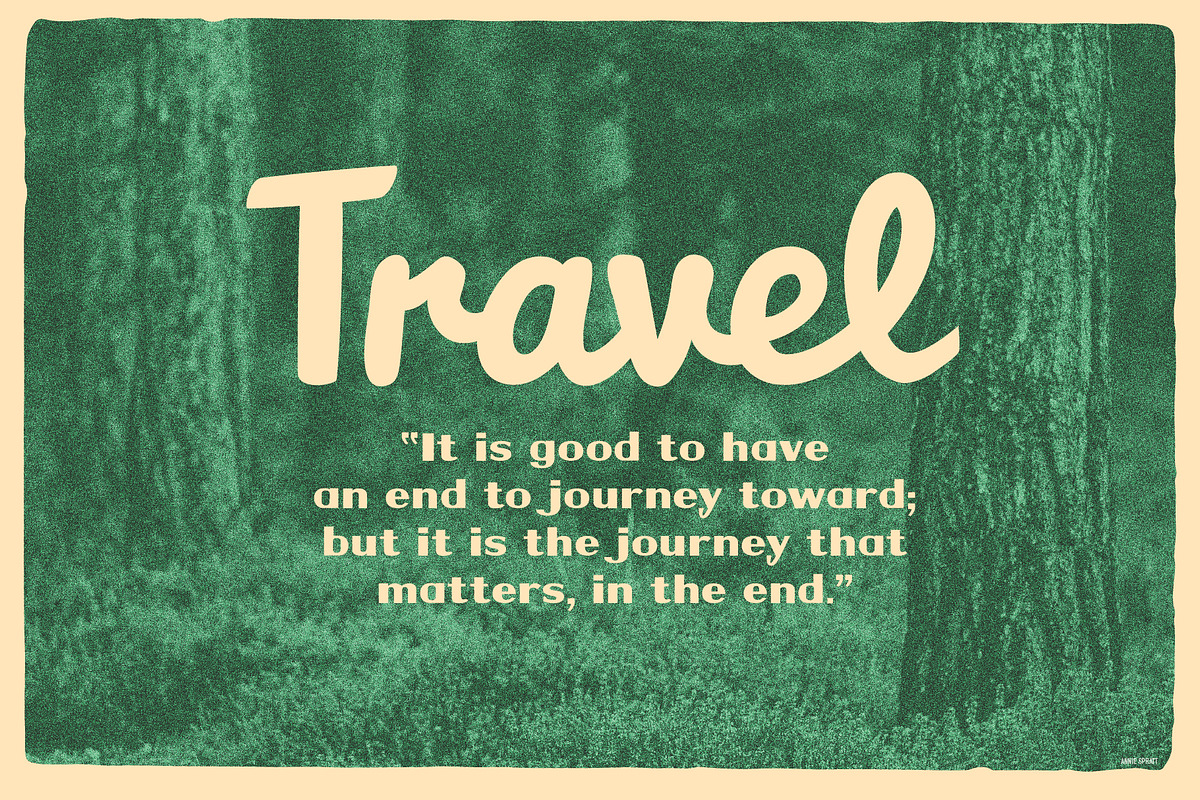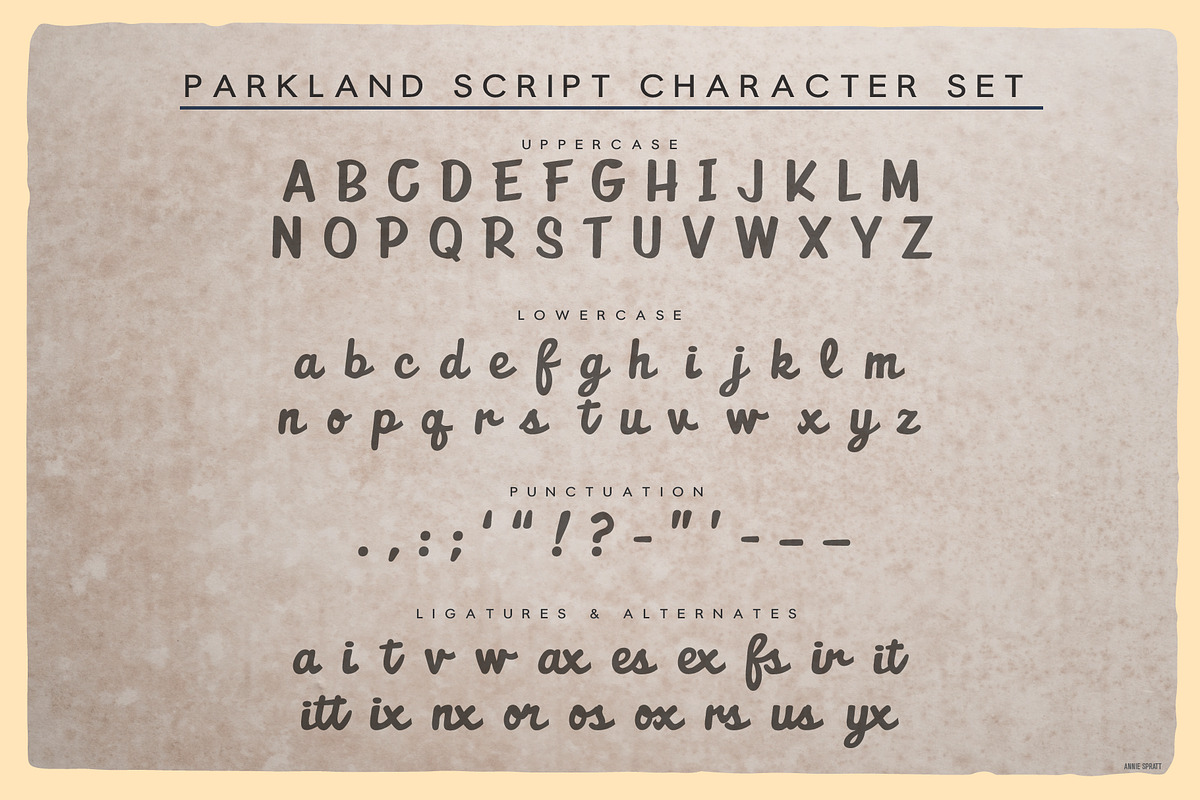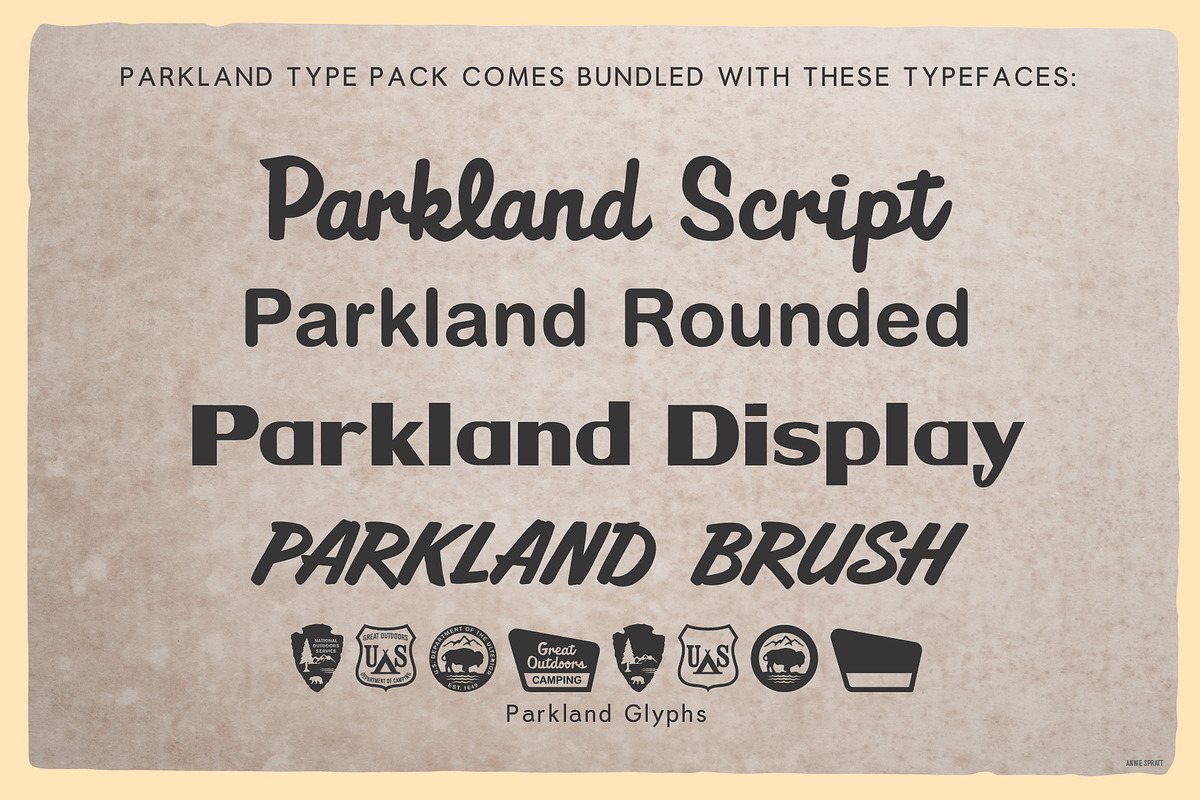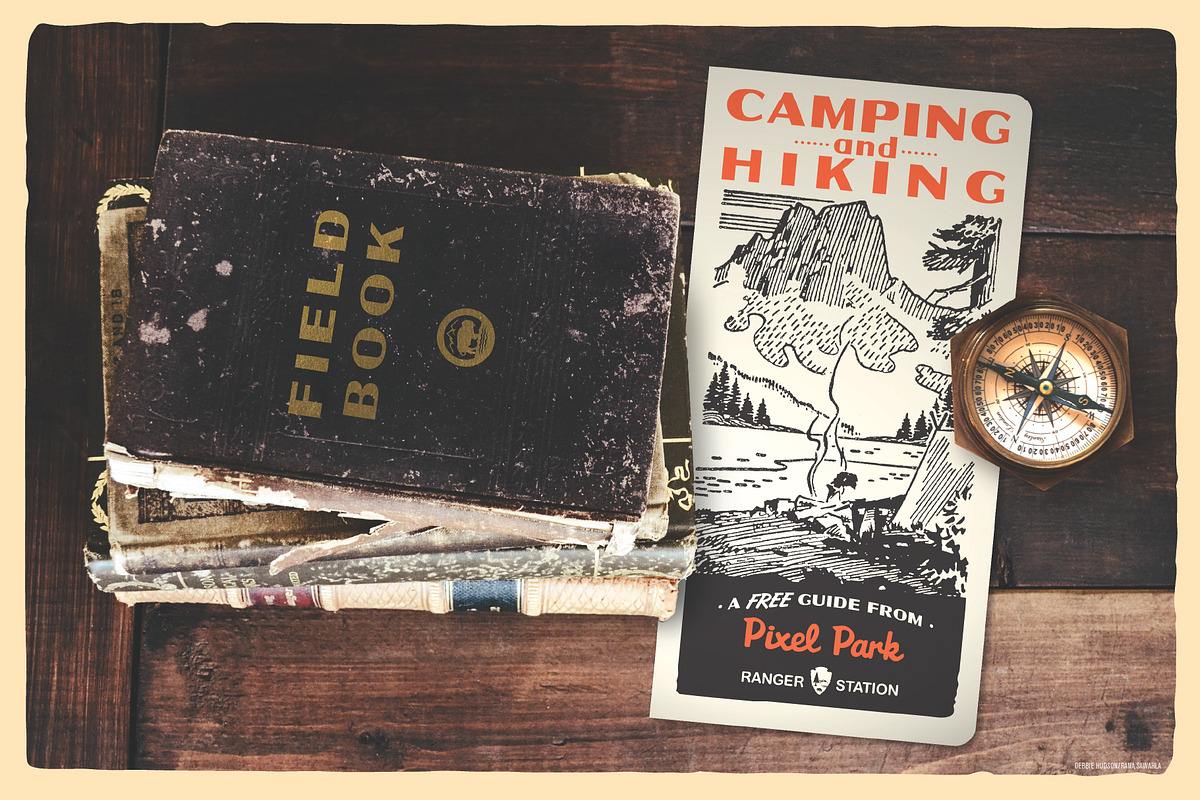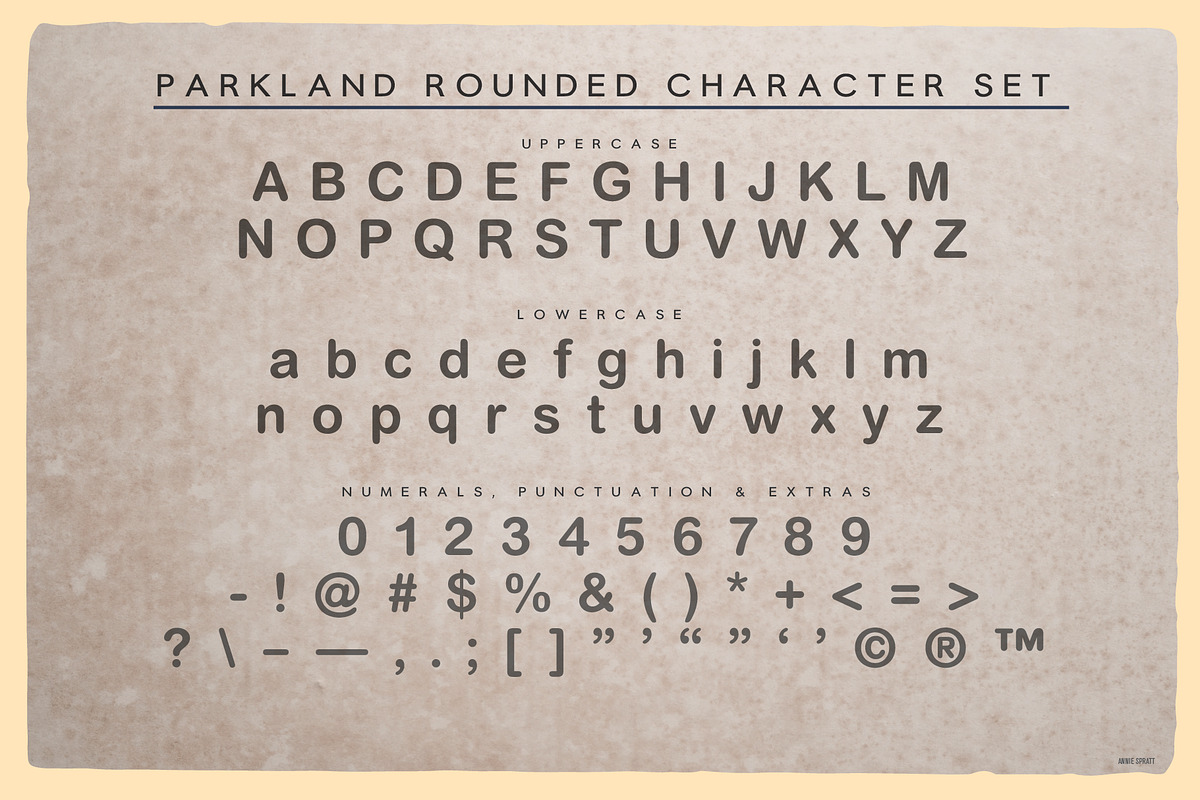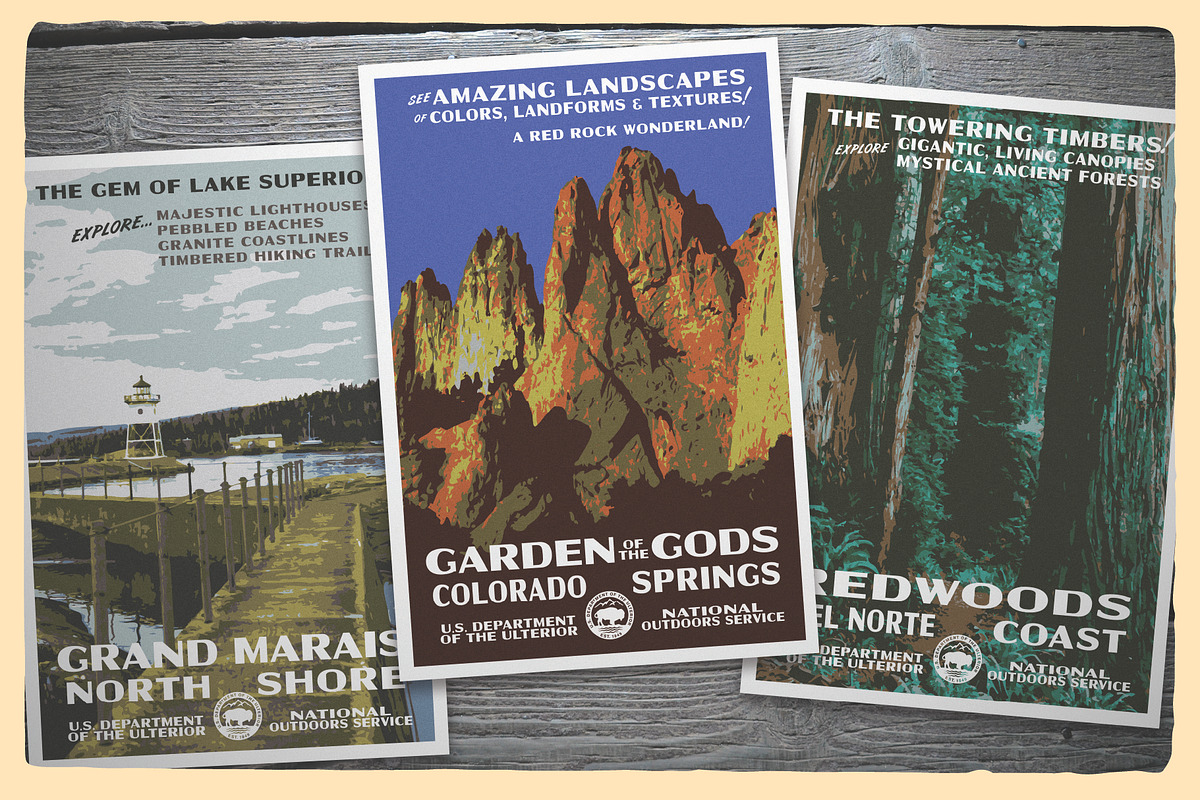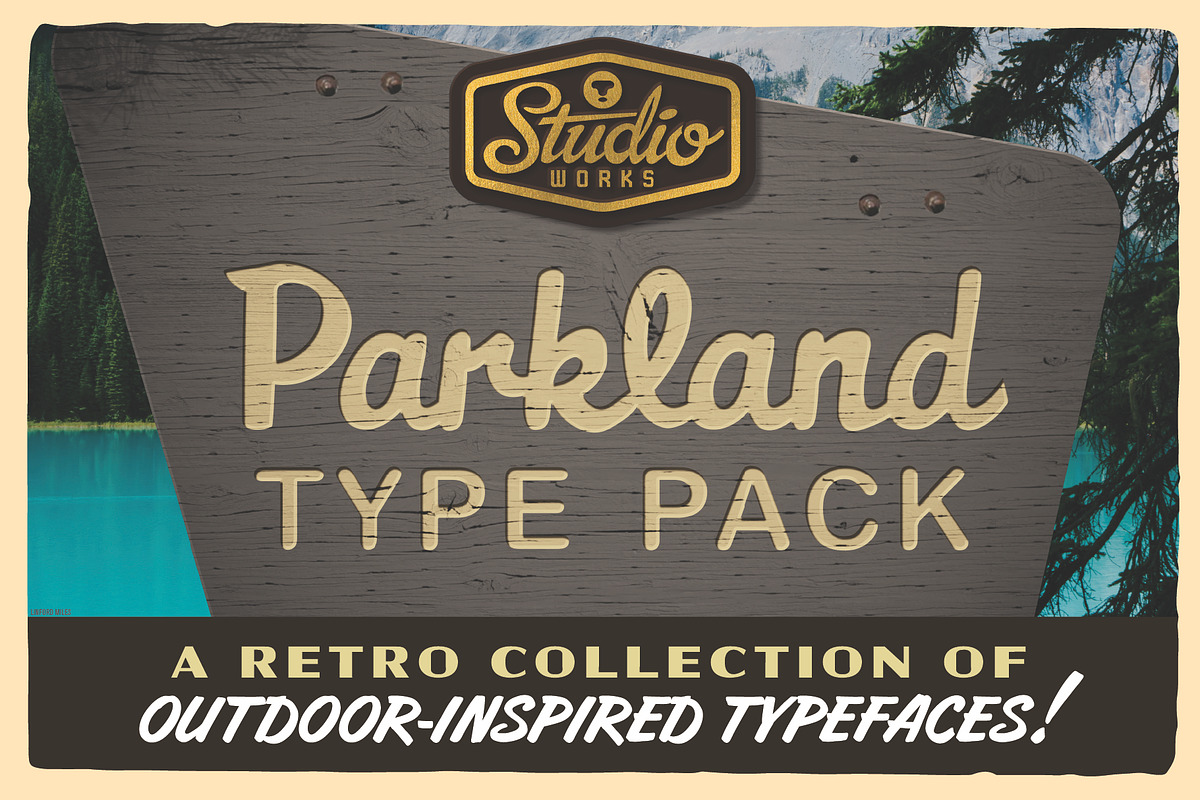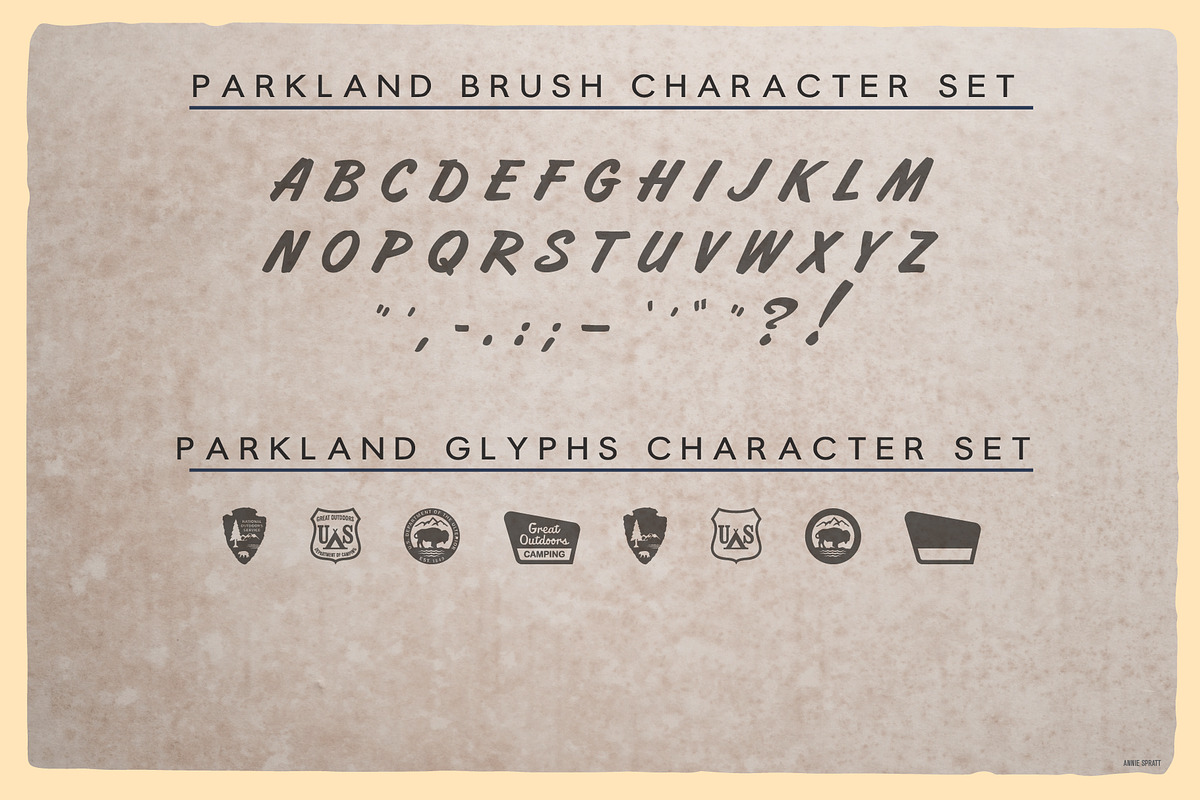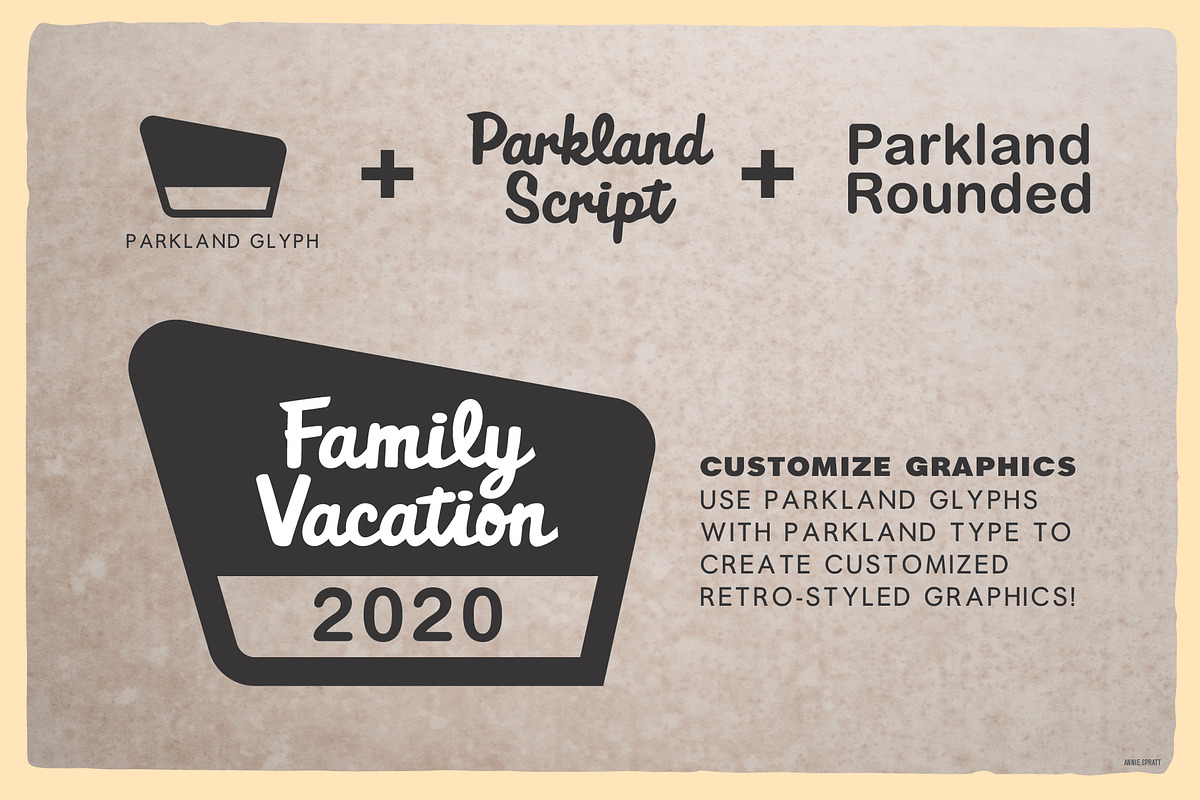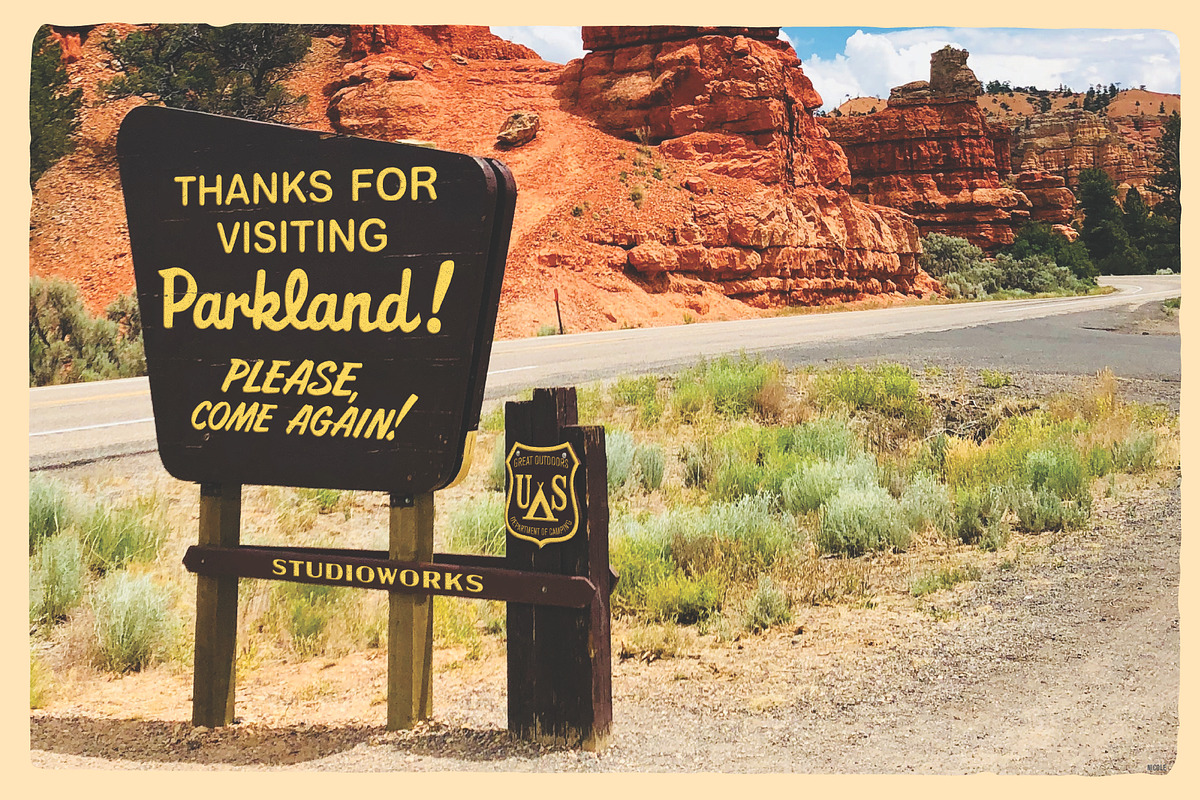
Parkland Type Pack | Retro Outdoors!
Introducing the •• P A R K L A N D •• T Y P E •• P A C K •• — a retro collection of typefaces celebrating the splendor of the great American outdoors. A throwback to an era of the summer vacation – when families piled into their luggage-stacked station wagons, pulling canoes and campers to freely explore the scenic wonders of the National Parks and Forests for some long-deserved rest and relaxation.
Inspired by vintage National Park and travel advertising typefaces of the 30s, 40s and 50s
Includes four retro-styled typefaces: Script, Rounded, Display and Brush
A bonus glyph set with four park-inspired replica badges
Parkland Script, Rounded and Display faces feature upper (A-Z) and lower case (a-z) characters, standard punctuation, glyphs and limited ligatures (Parkland Script)
Parkland Rounded and Display include standard numerals (0-9)
Parkland Brush is a CAPS ONLY display face with limited punctuation
The Parkland Type Pack was created after carefully studying the lettering of environmental and print advertising from early WPA posters, travel brochures and park signage. Character sets were carefully crafted into new originals to bring that reminiscent American charm to each typeface. Whether you're needing a classic and familiar look for a tourism campaign or simply want to add some retro-stylized charm to your own family vacation photos, add the Parkland Type Pack to your destination. Buckle up and enjoy the journey because designing with this type pack is a blast!